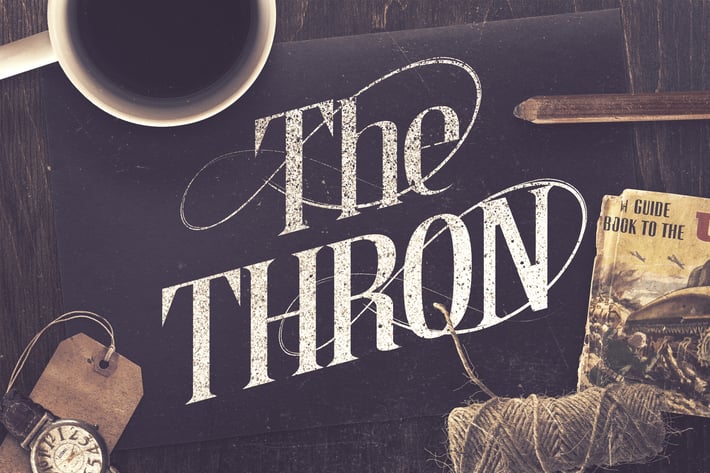
The Thron Typeface
The Thron is an elegant small font family that comes in 3 formats: Regular, Italic and Plus.
The Thron is a static font which contains great swashes that make the font look very elegant.
Font has 249 Glyphs. Font has about 30 ligatures.